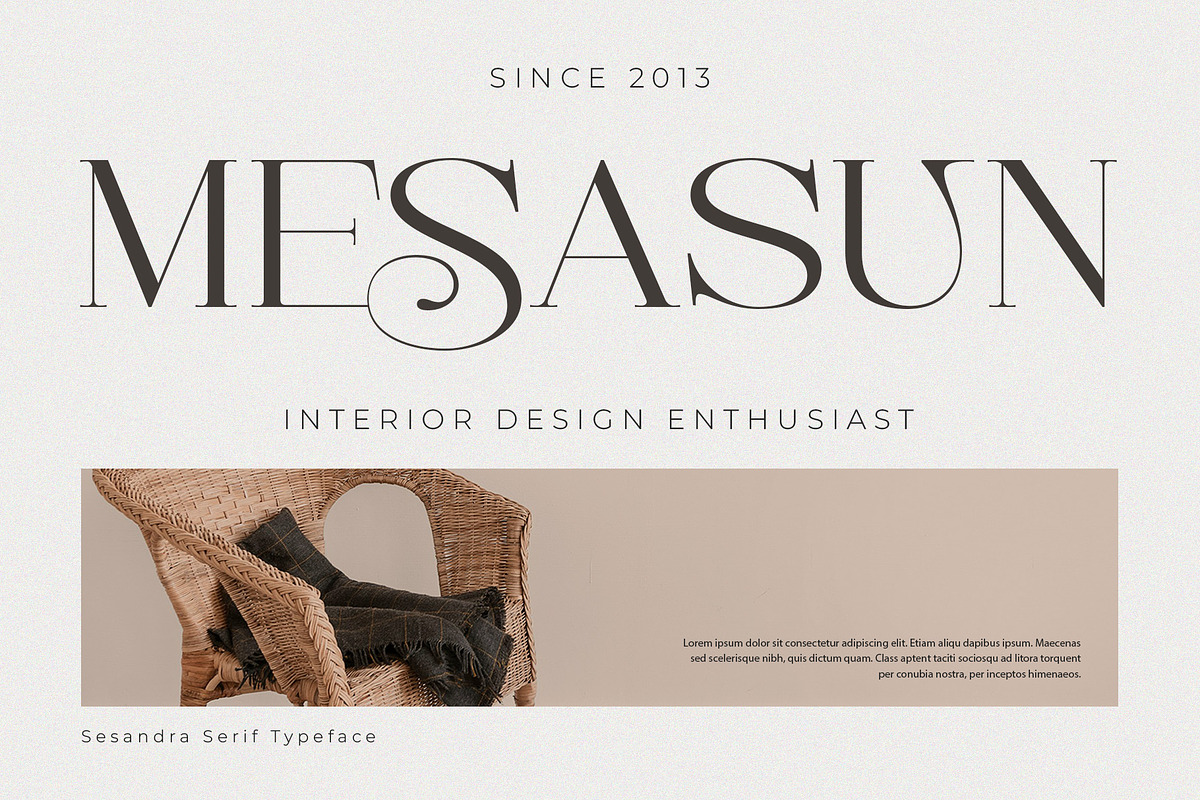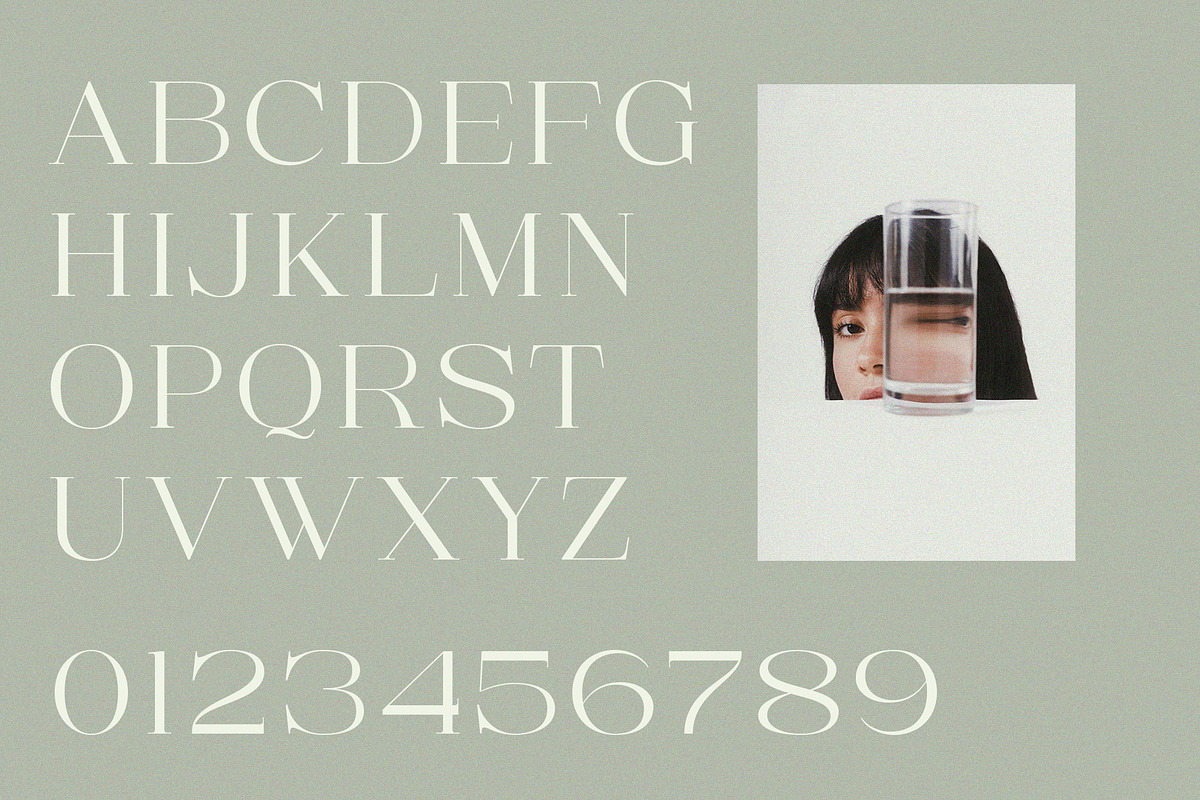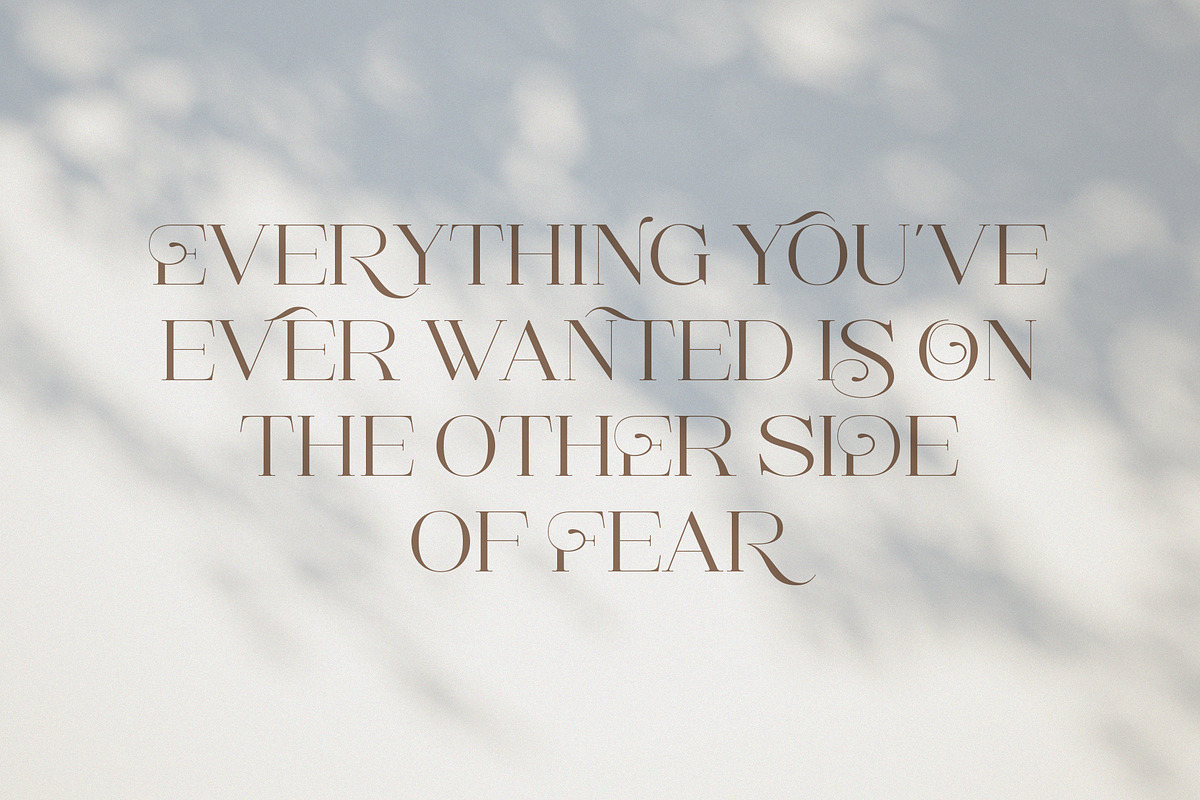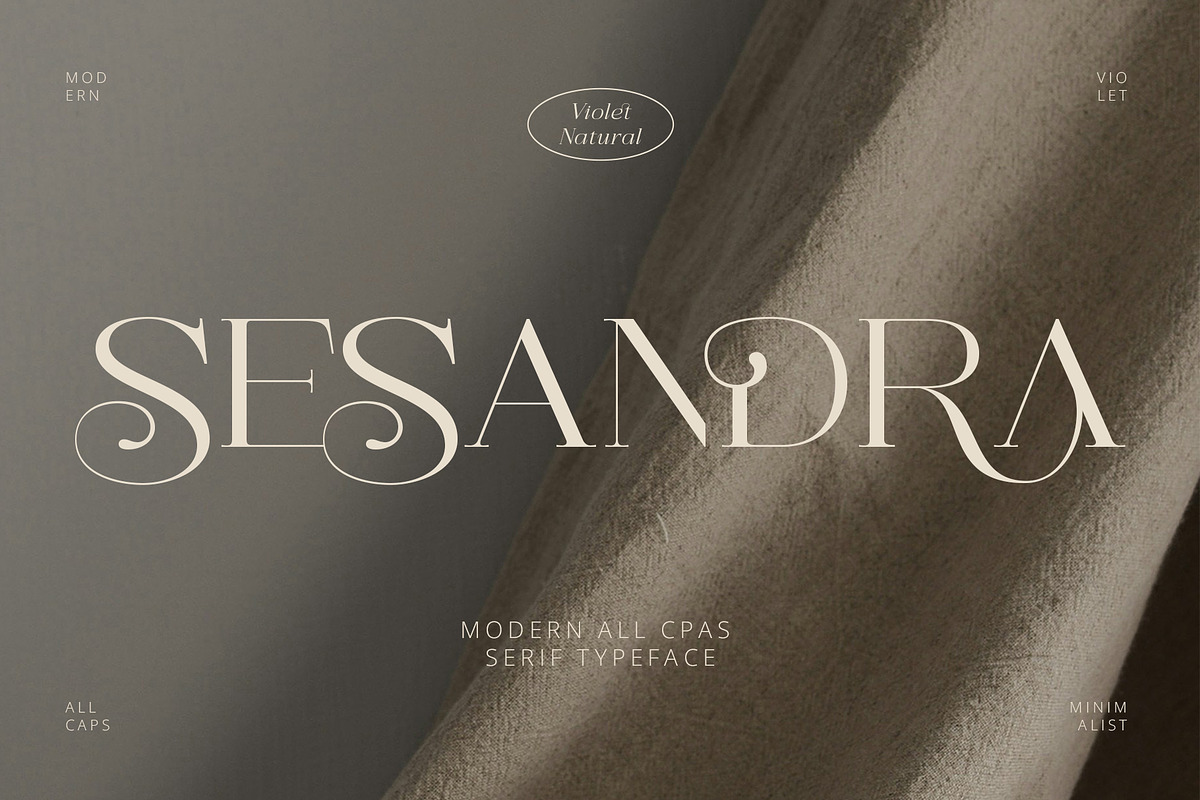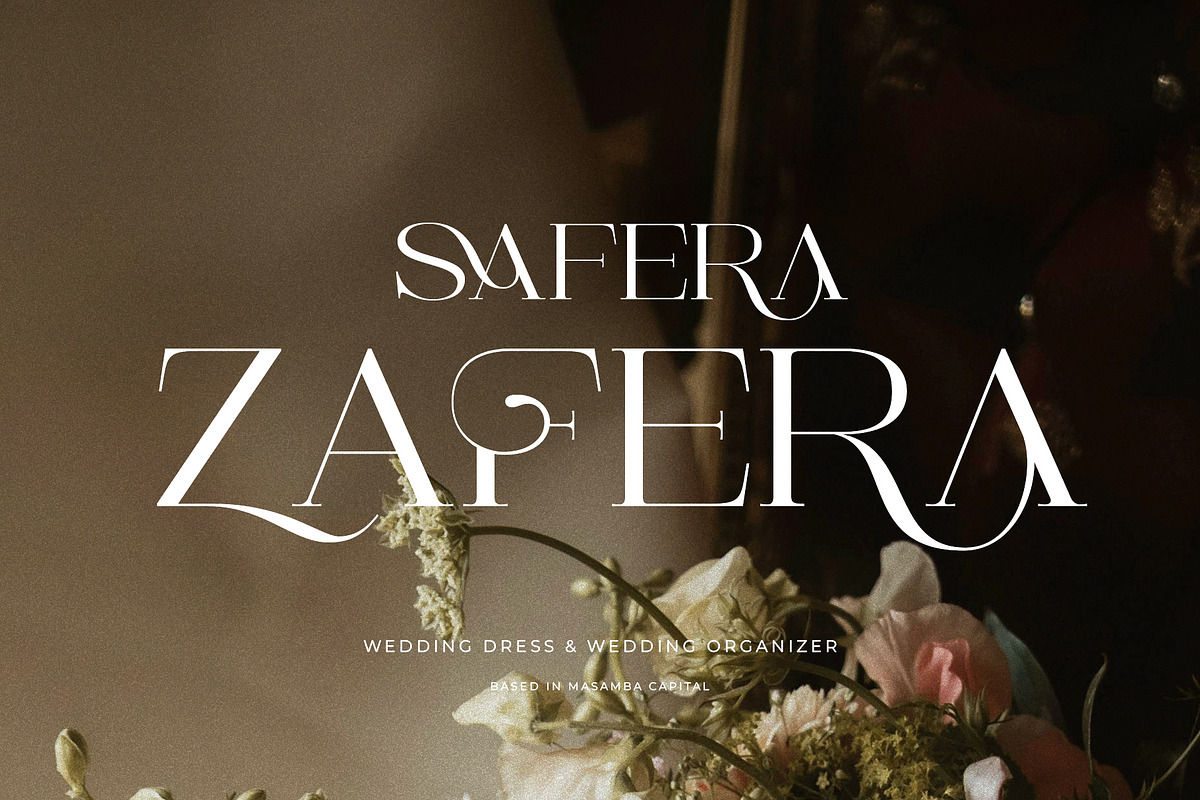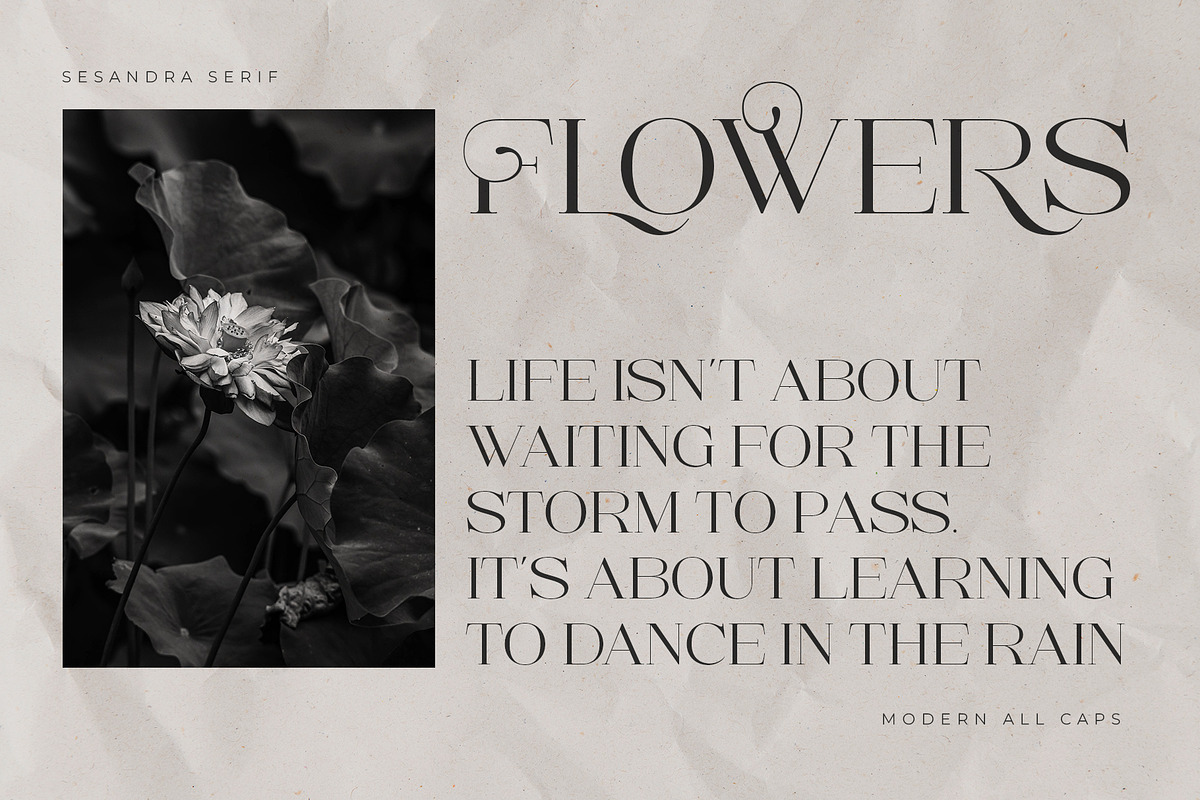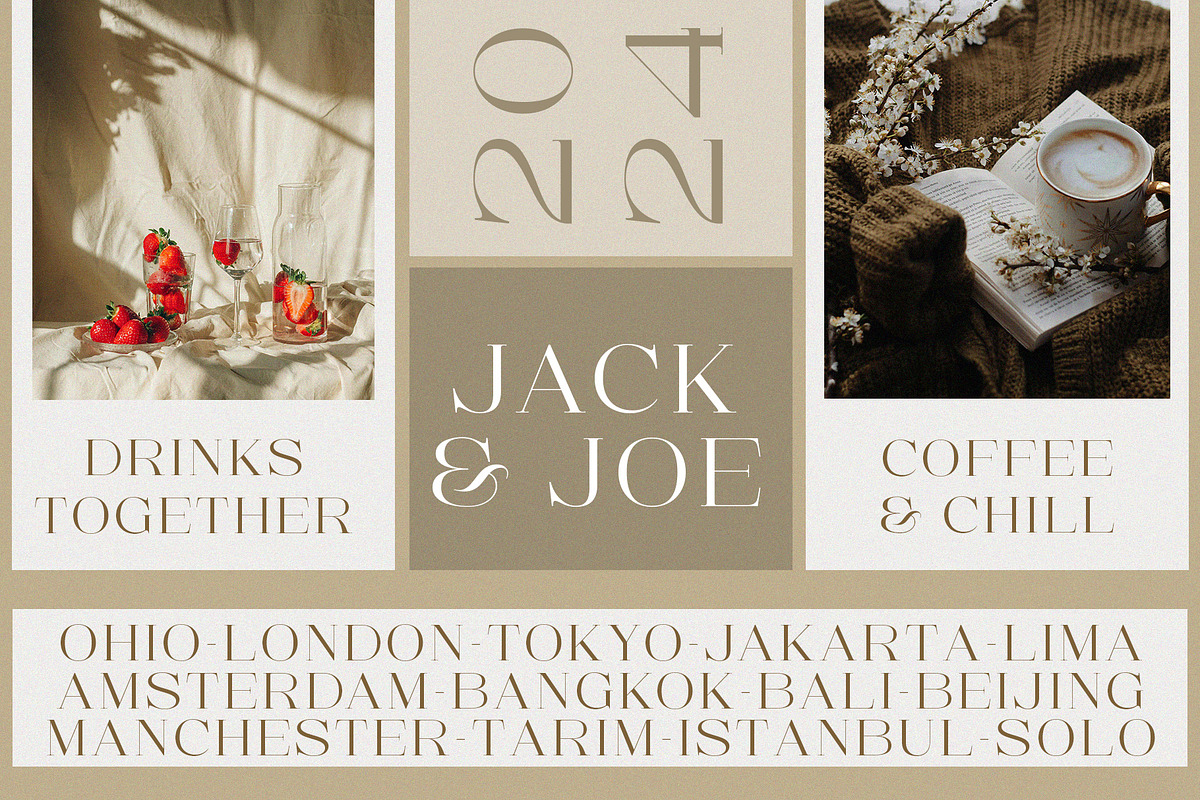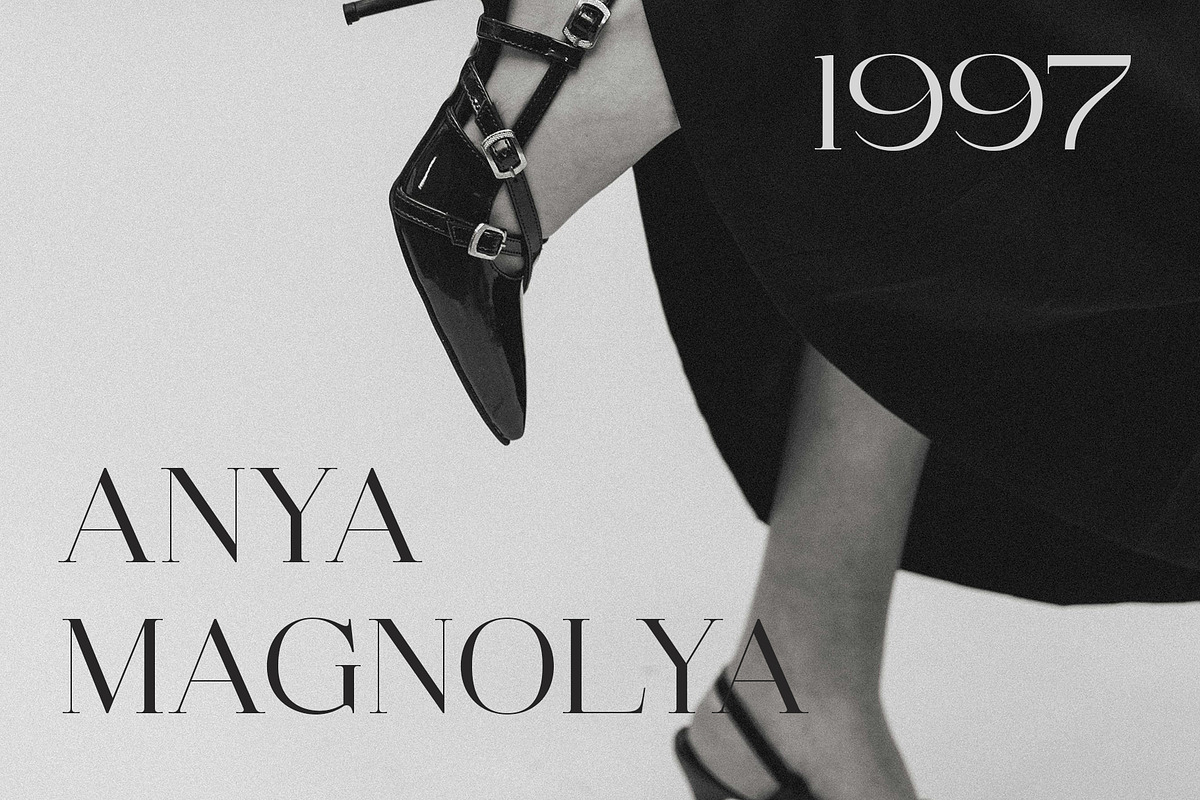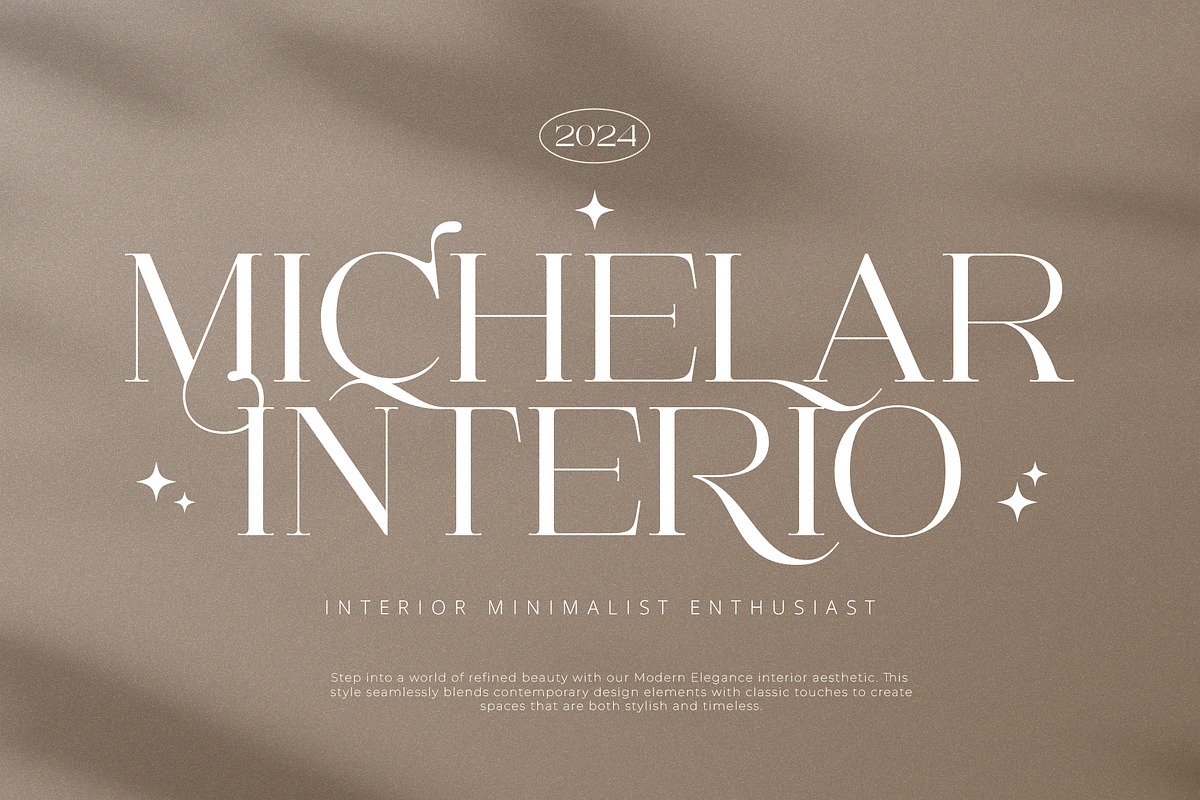
Sesandra Modern All Caps Serif
SESANDRA is a modern and minimalist font featuring a clean, bold all-caps design. It includes ligatures, which merge letters aesthetically for a smoother and more engaging appearance, and offers a range of alternate characters for design flexibility and visual variety. This font is ideal for enhancing the professionalism and appeal of client projects, making it well-suited for logos, branding, and graphic design. SESANDRA is crafted to provide a contemporary and elegant look, with features that support unique and captivating design.